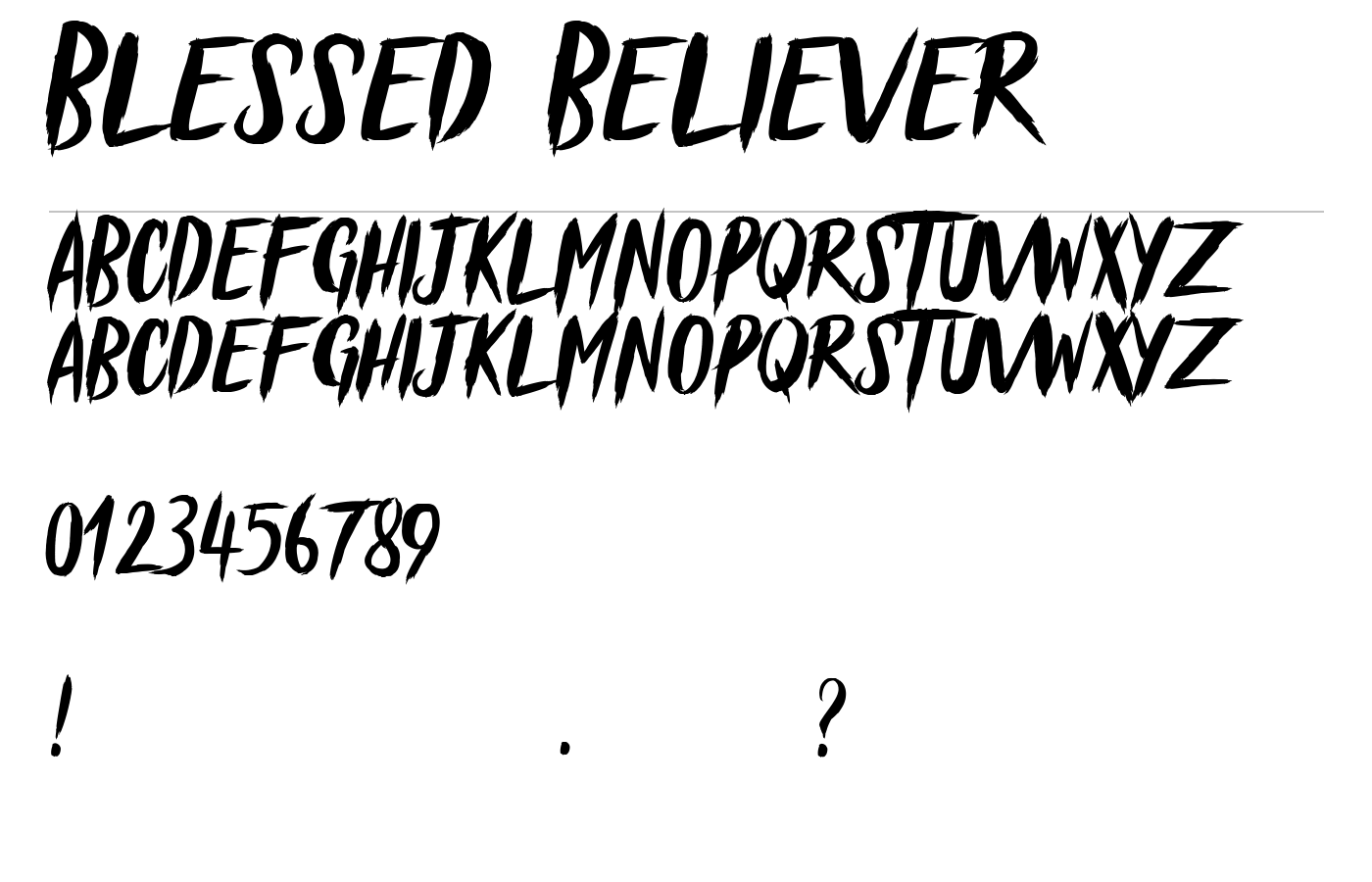
Blessed Believer is a bold, brush-style display font with a dynamic, hand-painted look that feels energetic and expressive. Its tall, narrow letters with sharp, rough edges give it a raw, authentic personality, making it perfect for creative branding, posters, and headlines that want to convey passion and intensity. This font works best where a strong, artistic statement is needed to grab attention and inspire emotion.
Blessed Believer Font
About Blessed Believer Font